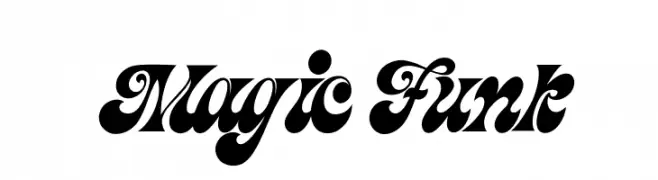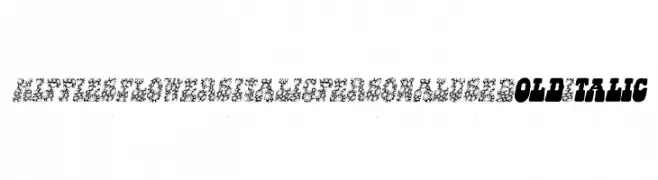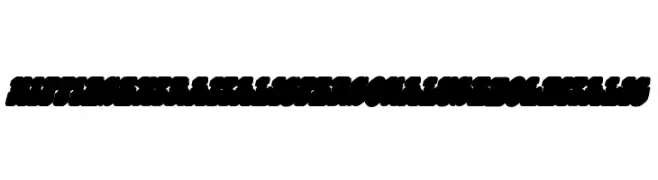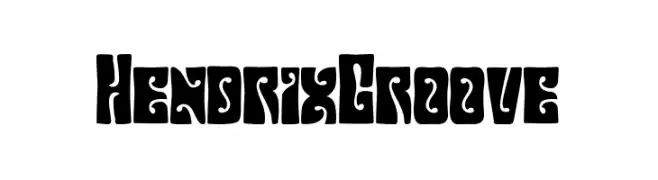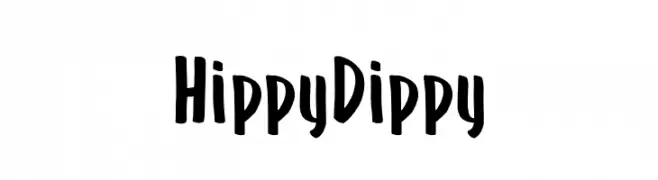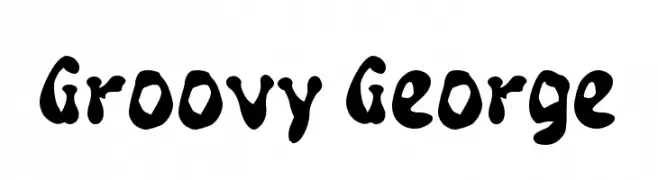
A bold, retro-inspired font with playful curves and swirls.
A bold, italic, floral-patterned decorative font with a retro vibe.
A bold, italicized font with a retro, playful vibe and strong presence.
A bold, psychedelic font with swirling, organic shapes and high contrast.
A bold, retro-inspired font with rounded, chunky characters.
A psychedelic, artistic font with flowing, organic forms and medium contrast.
A hollow, psychedelic font with flowing curves and a retro vibe.
A bold, retro-inspired font with playful, rounded characters.
A playful, bold, hand-drawn font with a retro vibe.
A playful, retro font with bold, rounded characters and a fluid, dynamic style.